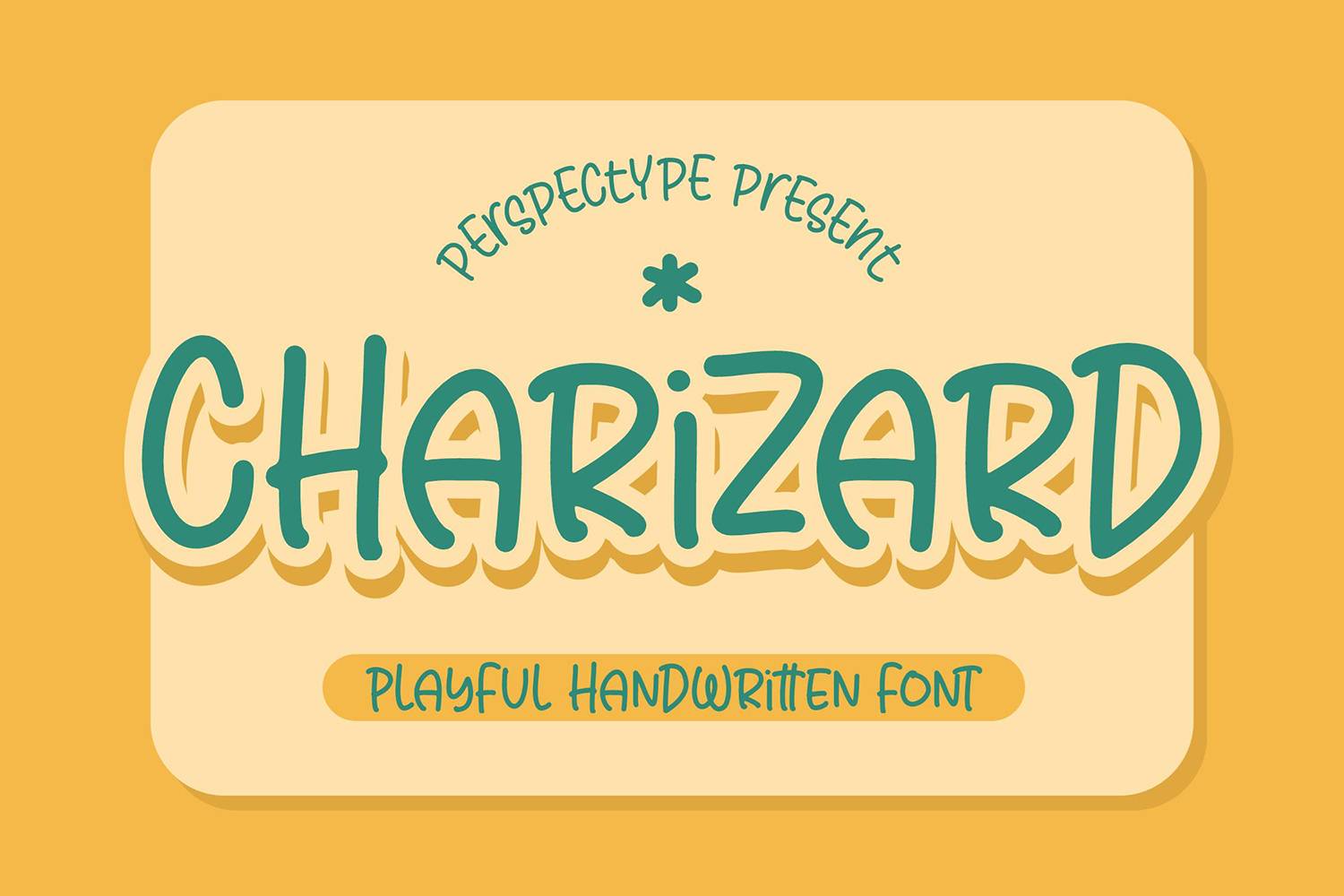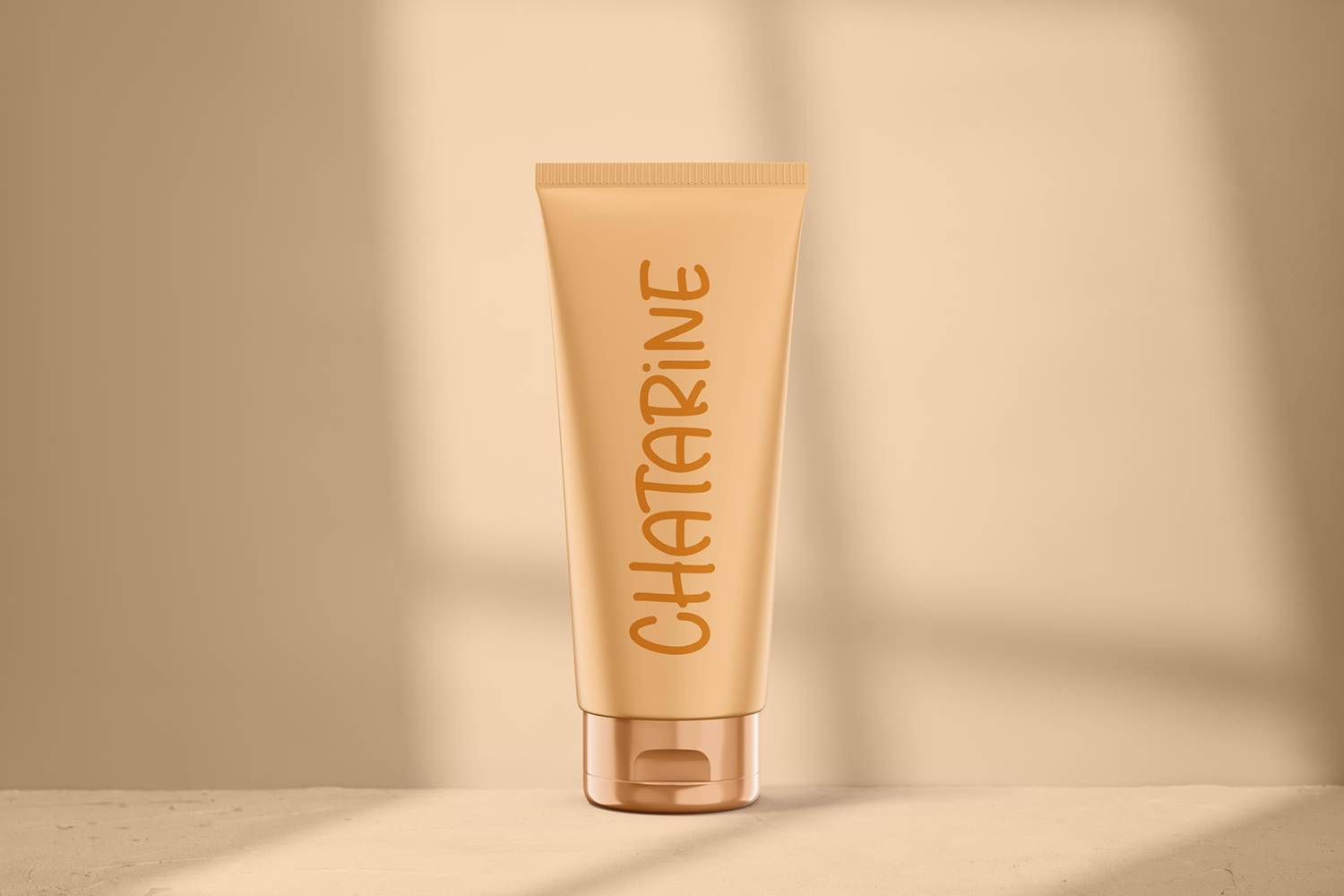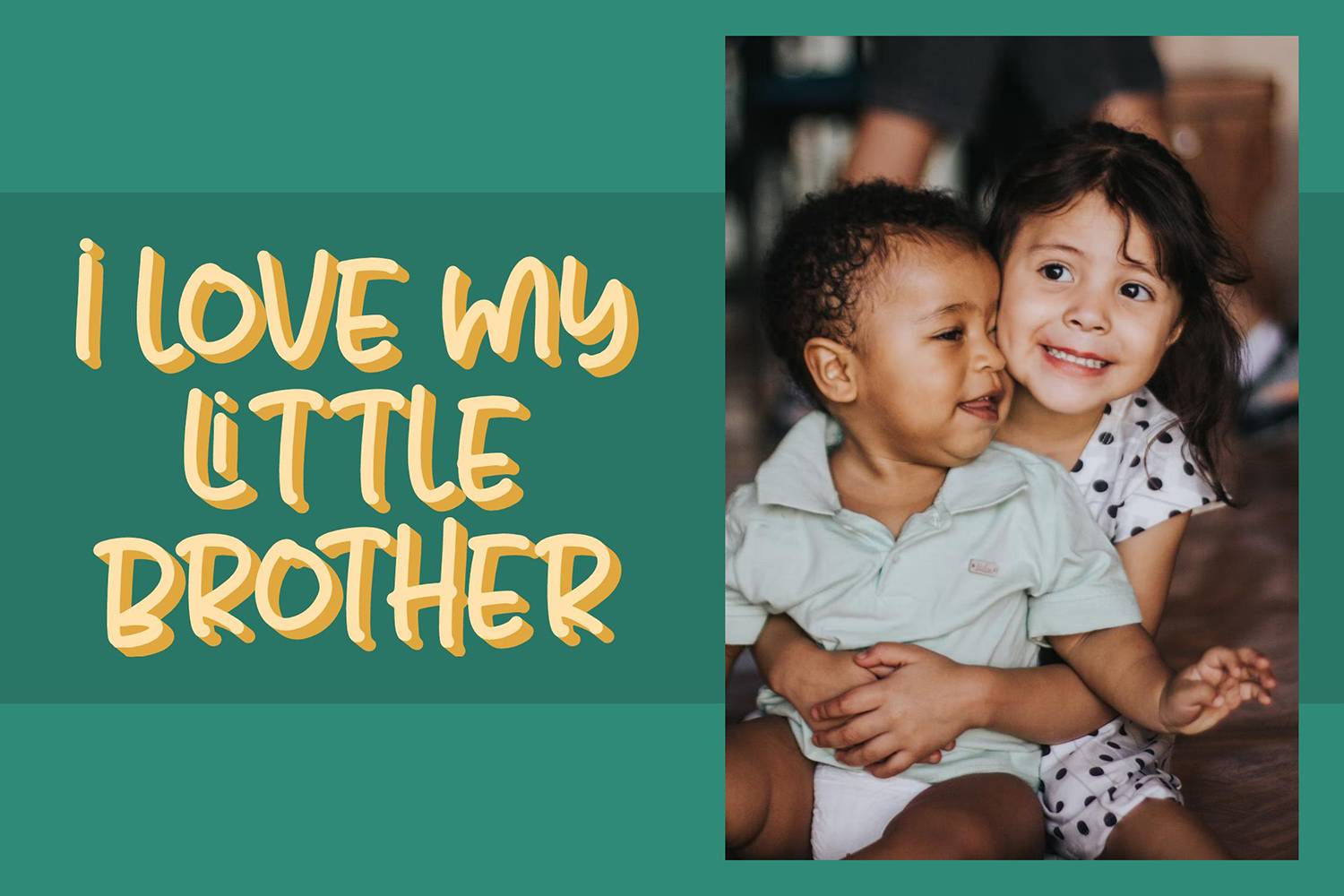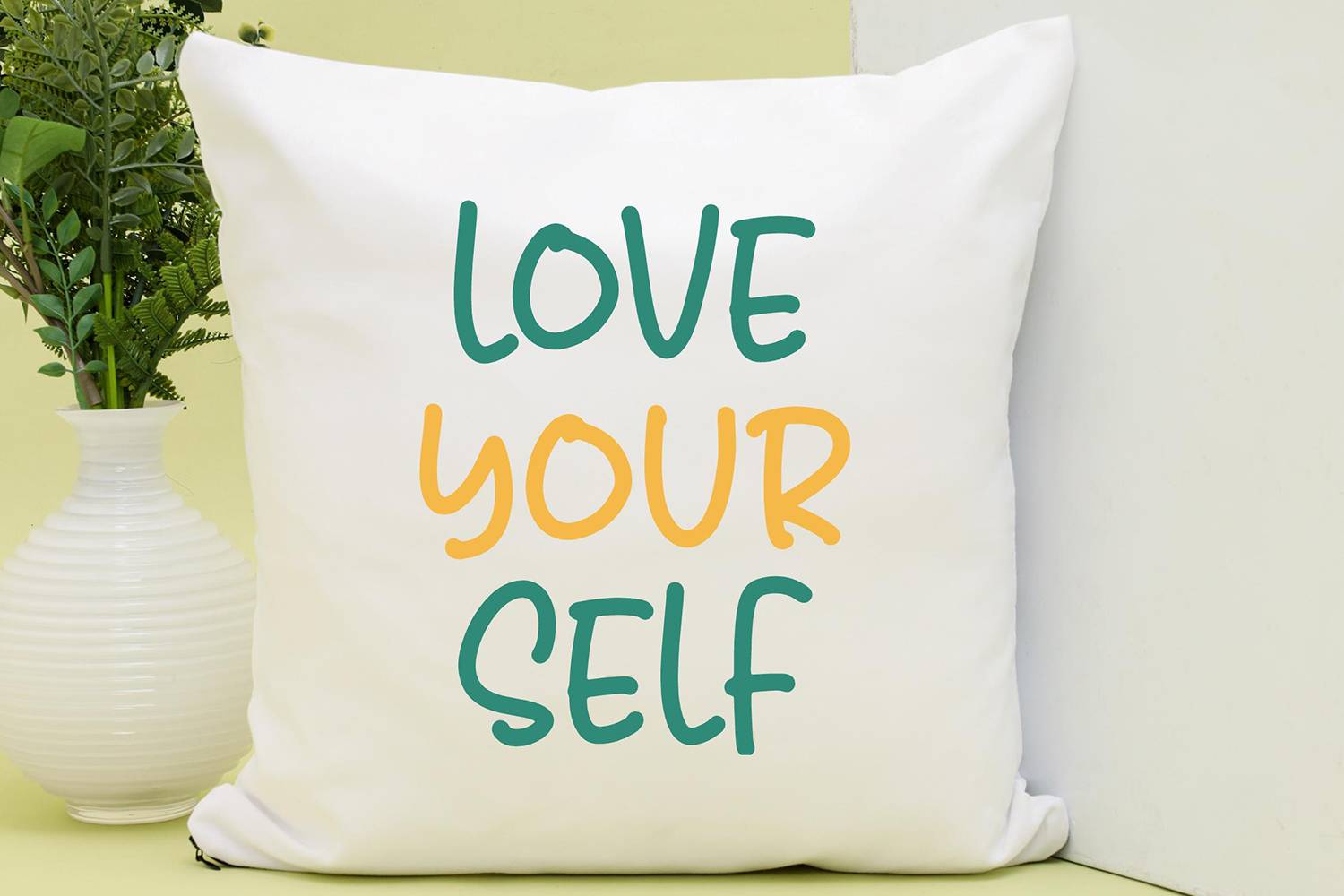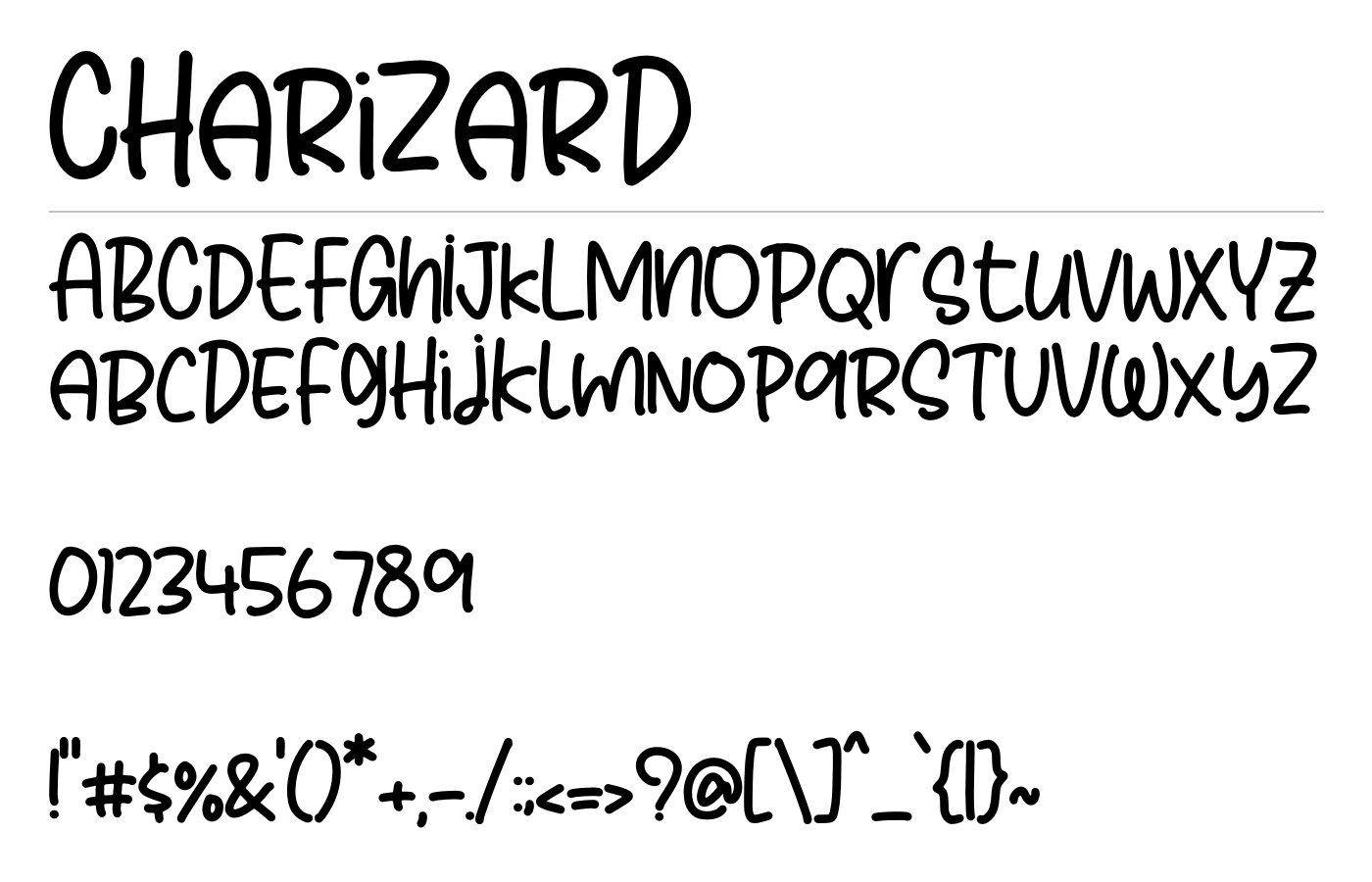
Charizard is a playful and casual sans serif font with a handwritten feel, featuring rounded, slightly irregular letterforms that create a friendly and approachable vibe. Its medium weight and balanced width make it versatile for informal uses like comics, children’s books, or creative branding. This font works well in headlines and display settings where a fun, energetic personality is desired.
Charizard Font
About Charizard Font